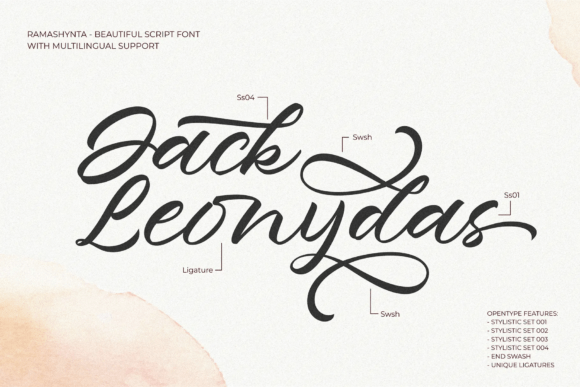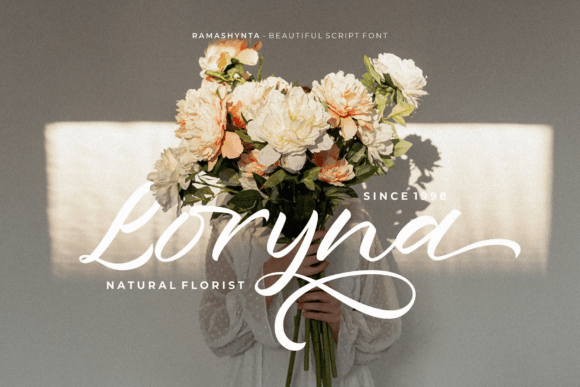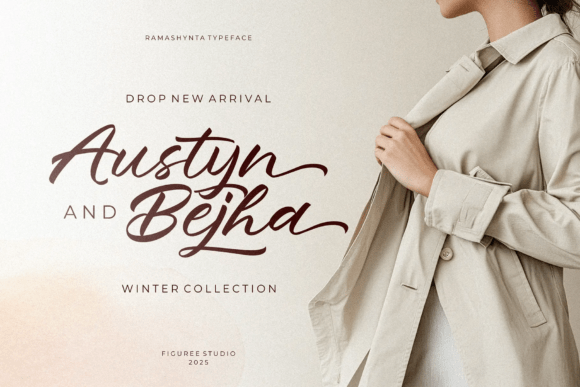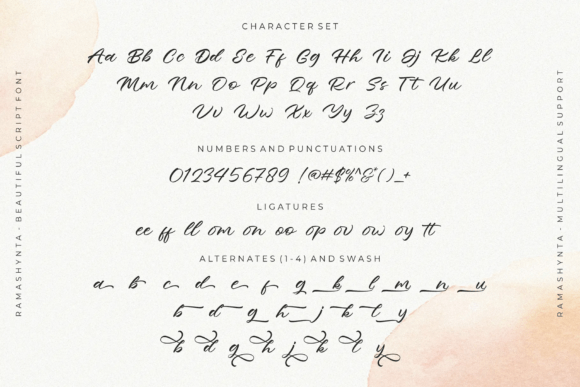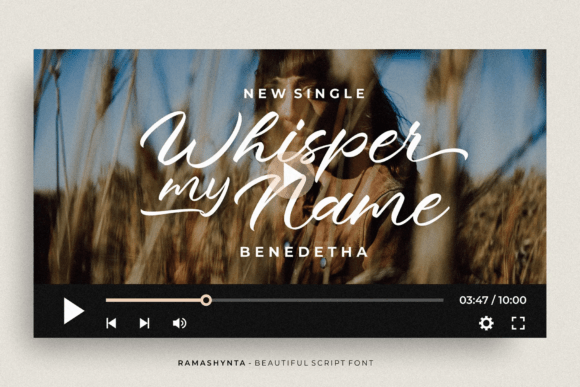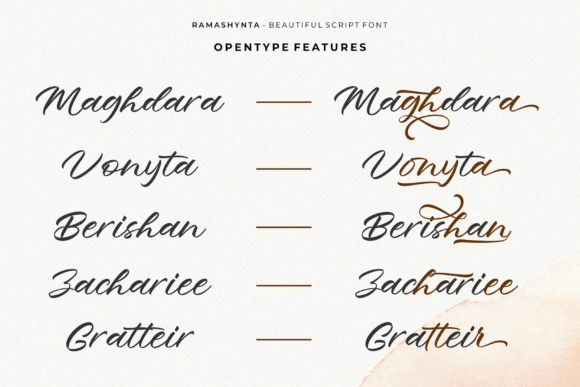
Introduction to Ramashynta Font
Have you ever been working on a design project, pouring your heart and soul into it, only to realize that something is missing – that special touch that elevates your creation from good to great? For many designers, this moment of realization can be a frustrating experience, but what if I told you there’s a solution that can transform your text into art? Enter the Ramashynta Font, a beautiful script font that captures elegance and romance in every curve, perfect for adding a timeless charm to your designs.
As a designer, you understand the importance of having high-quality design resources at your fingertips. Ramashynta Font is a valuable addition to any creative project, offering a range of features that make it stand out from the crowd, including flowing ligatures, graceful alternates, and smooth swashes. Whether you’re working on a branding project, creating a wedding invitation, or designing social media graphics, this beautiful script font is sure to impress.
What sets Ramashynta Font apart is its ability to add a touch of sophistication and personality to your work, making it a must-have for any designer looking to elevate their designs to the next level. With its versatility and high-quality design, it’s no wonder that Ramashynta Font has become a popular choice among designers.
Key Features of Ramashynta Font
- High-quality design suitable for creative projects, offering a unique aesthetic.
- Unique characteristics include a mix of modern and vintage elements, perfect for creating a distinctive visual identity.
Honest Review: Ramashynta Font
I recently stumbled upon the Ramashynta Font, and I must say it’s been a game-changer for my creative projects. As a designer, I’m always on the lookout for high-quality fonts that can elevate my designs and make them stand out.
One of the things that I appreciate about the Ramashynta Font is its unique and elegant design. The font is perfect for creating a sophisticated and modern look, making it an excellent choice for any design project. I also appreciate that the font has a transparent background, which makes it easy to use on any design resource.
Here are some of the things that work well about the Ramashynta Font:
- ✨ Unique and elegant design
- ✨ High-quality and clear characters
However, there are a few limitations to the Ramashynta Font that I’ve noticed:
- ⚠️ Limited character set, which may not be suitable for longer texts
- ⚠️ Not suitable for use in very small font sizes
Overall, I’m very impressed with the Ramashynta Font, and I would highly recommend it to any designer looking for a high-quality font for their creative project. With its unique design and transparent background, it’s a great addition to any design resource.